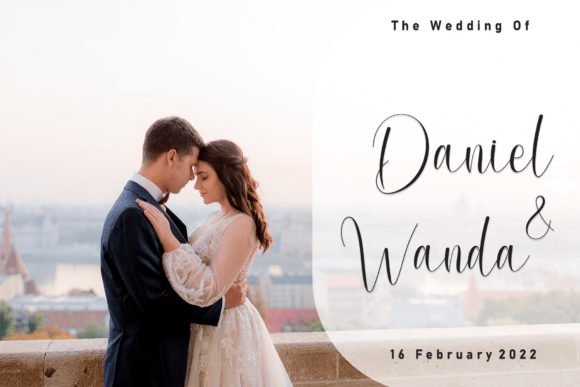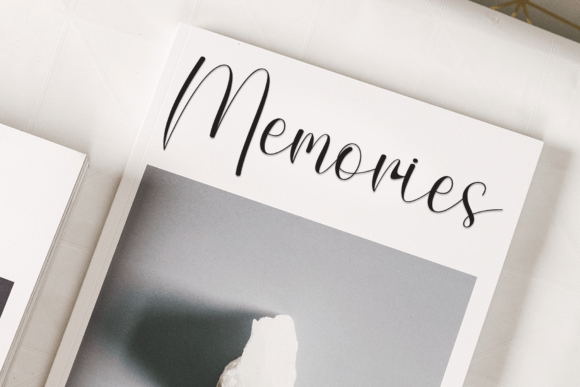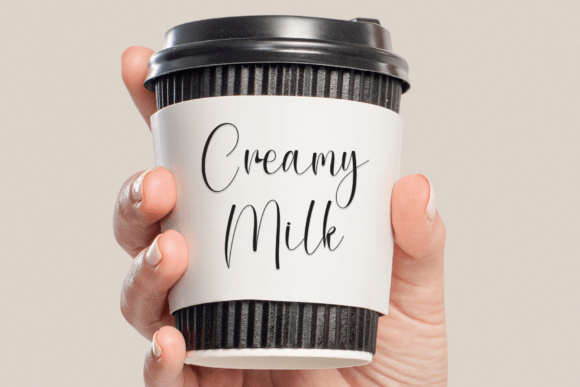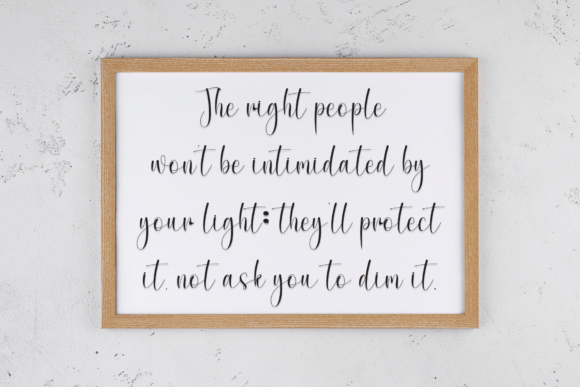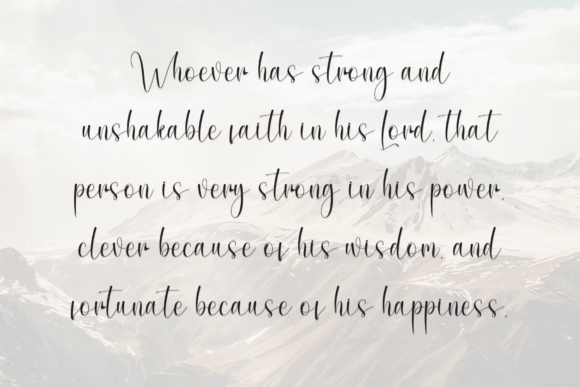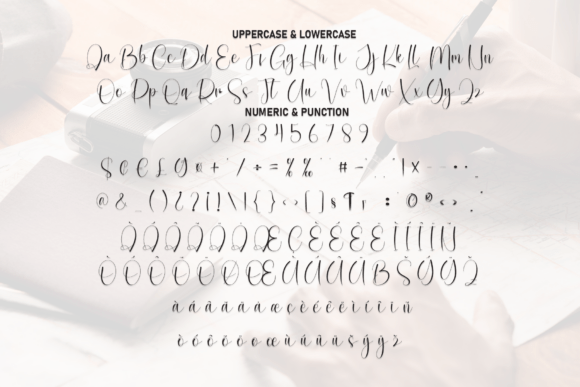
The Autography Font: Elevate Your Designs with a Touch of Elegance
Have you ever been in the middle of a design project, pouring your heart and soul into it, only to hit a roadblock when it comes to finding the perfect font? I certainly have. It was during one of those moments, working on a wedding invitation design, that I stumbled upon the Autography Font. And let me tell you, it was love at first sight! 💕
The Autography Font is a game-changer for designers, crafters, and creative hobbyists looking to add a touch of elegance and personality to their work. With its unique, hand-crafted style, this font is perfect for a wide range of projects, from wall displays and wedding invitations to social media post logos, advertisements, product packaging, and more.
What Makes Autography Font Special?
So, what sets the Autography Font apart from other fonts out there? Here are some of the things that I love about it:
- ✨ Unique and Creative: The Autography Font features the latest style letters that are perfect for adding a touch of elegance and sophistication to your designs.
- ✅ Versatile: This font is perfect for a wide range of projects, from wall displays and wedding invitations to social media post logos, advertisements, product packaging, and more.
One of the standout features of the Autography Font is its OpenType capabilities. With OpenType, you can access a range of glyphs, stylistic alternates, and other features that can help take your designs to the next level.
The Story Behind Autography Font
The Autography Font was created by a team of designers who are passionate about typography and committed to creating high-quality, unique fonts that inspire creativity. With a focus on elegance, sophistication, and versatility, the Autography Font is the perfect addition to any design project.